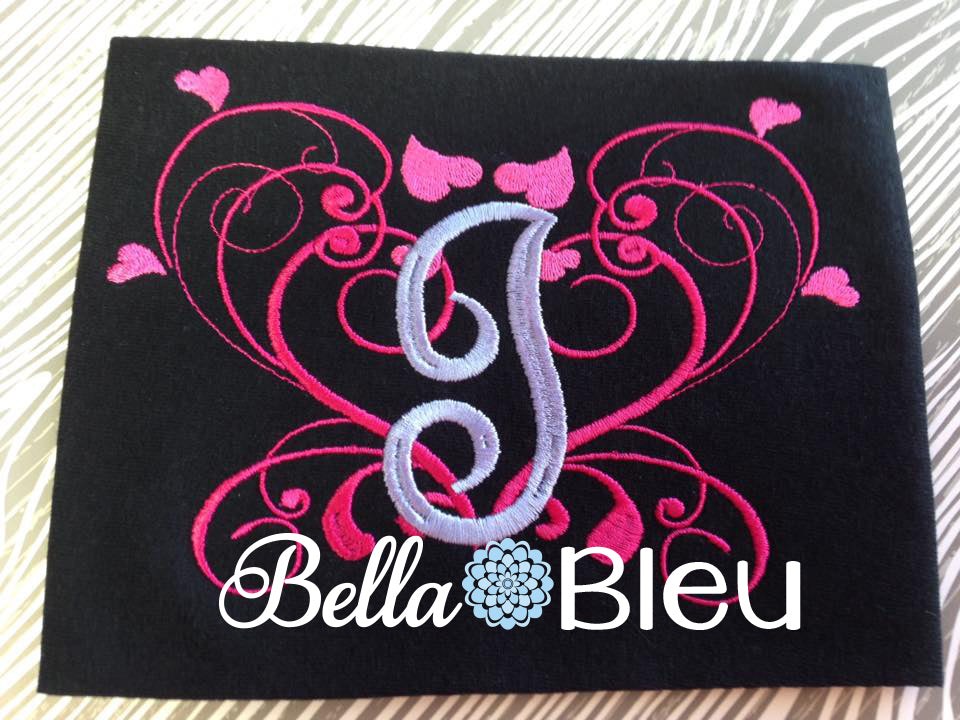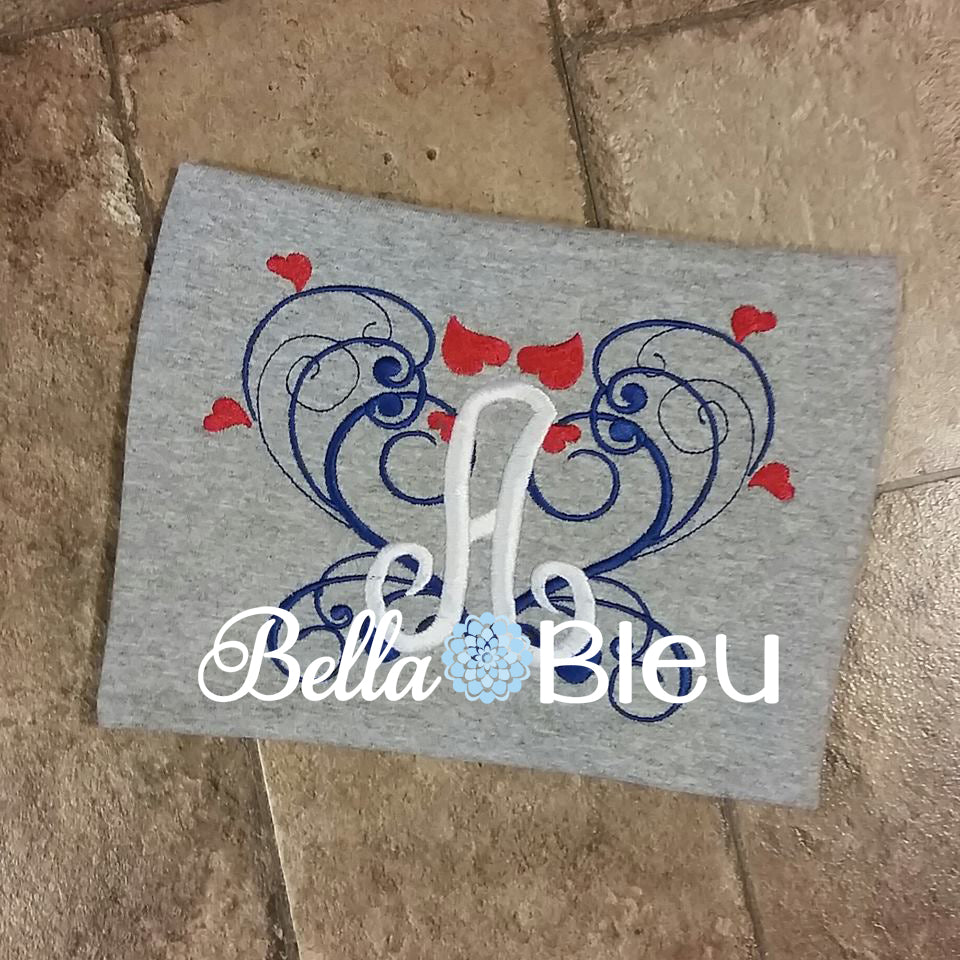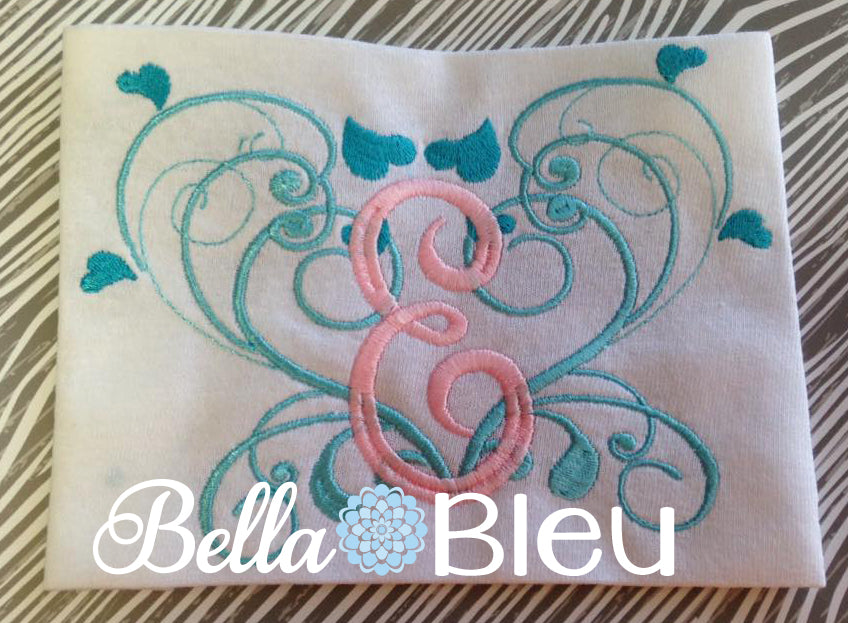
Heart Wreath Monogram Font Machine Embroidery Design
Beautiful Heart Wreath Monogram font Machine Embroidery Design
It does not come in the circle that is just a stitchout.
This designs perfect for the front of tee shirts, totes or towels.